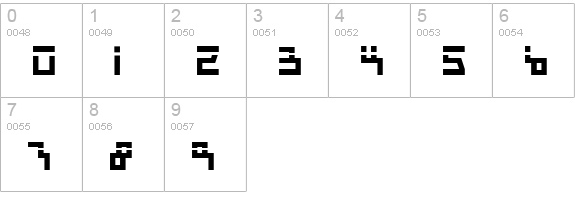
Beam Rider Bold Laser is a strong, high-contrast variant in the Beam typeface family \xE2\x80\x94 well suited to headlines, attention-grabbing titles, and strong calls-to-action.
Introducing Beam Rider Bold Laser font, a futuristic and eye-catching typeface that exudes a sense of modernity and innovation. With its sharp lines and bold design, this font is perfect for adding a dynamic touch to your projects. The Beam Rider Bold Laser font is versatile and can be used for a variety of design purposes, from branding to digital art. And the best part? This striking font is available for free download at FontsMarket.com. So why wait? Elevate your designs with the Beam Rider Bold Laser font today and make a statement that truly stands out.